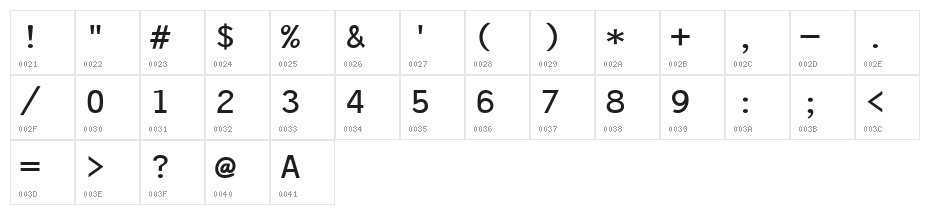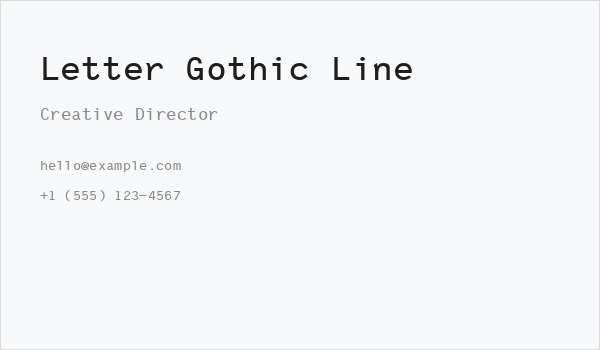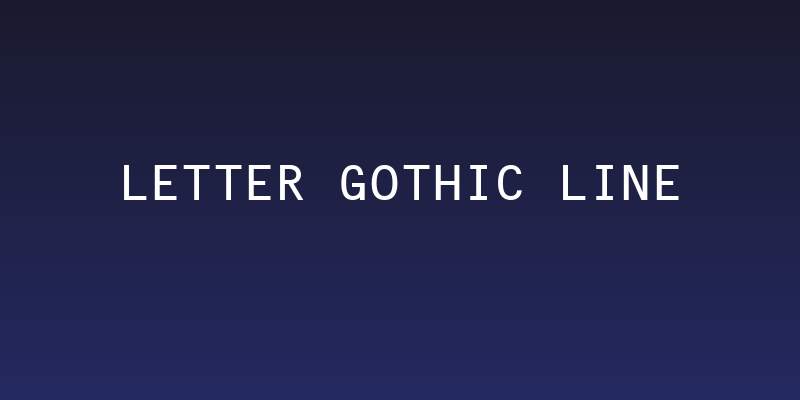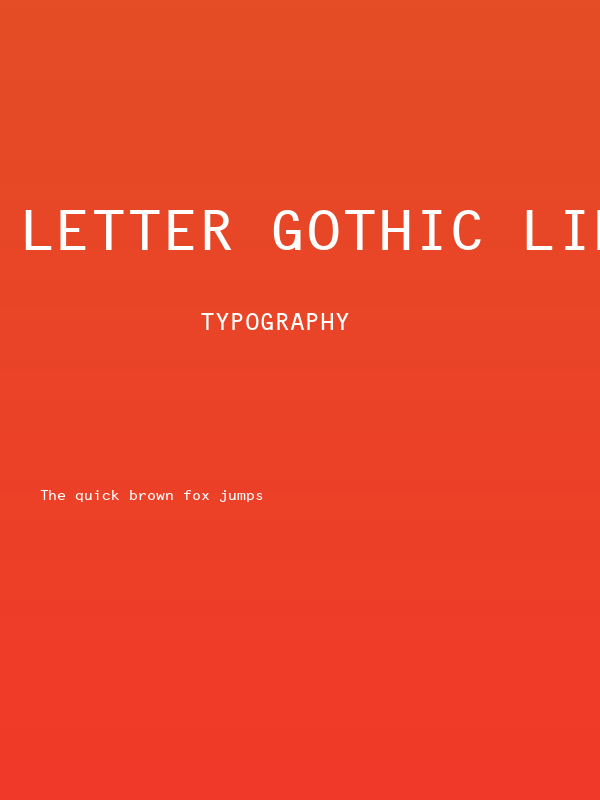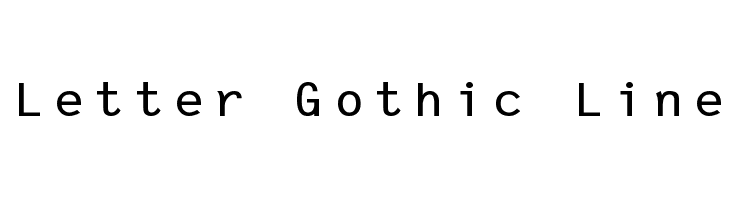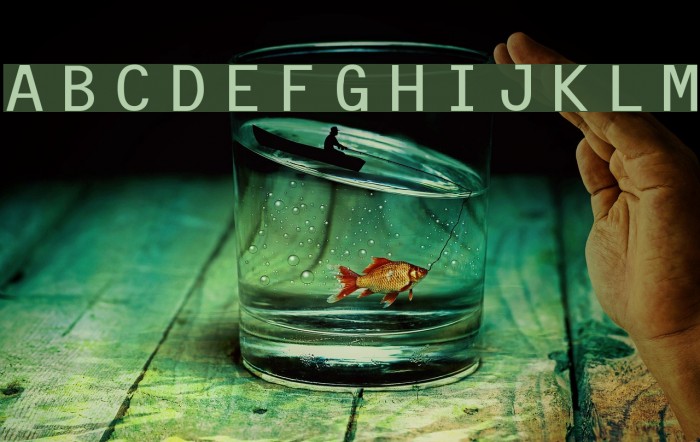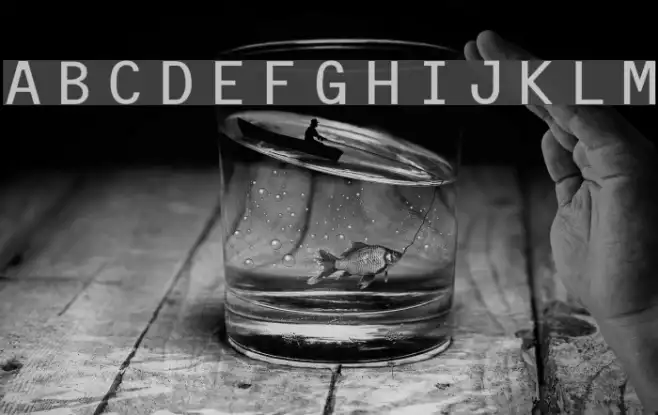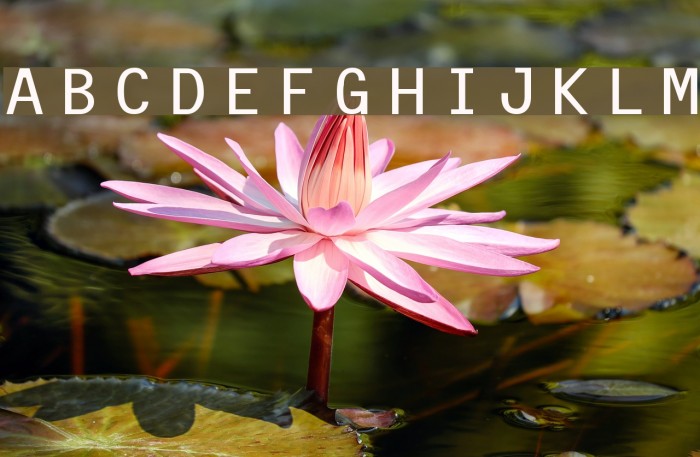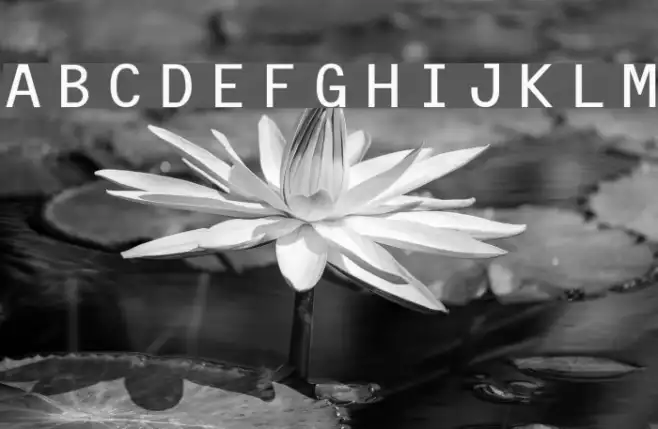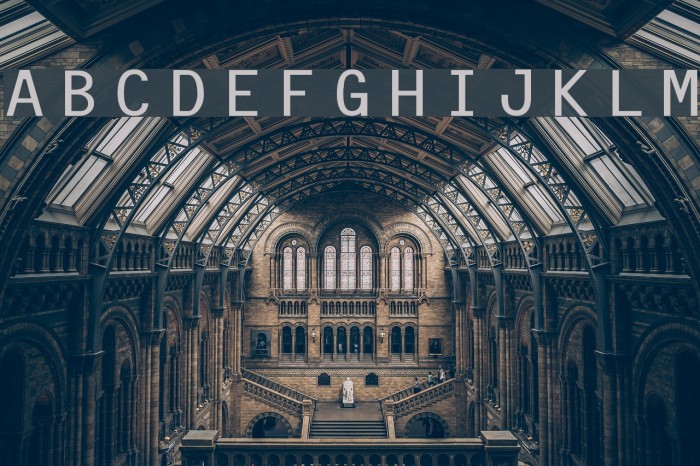
Letter Gothic Line Font
Letter Gothic Line Description
This font features a clean, monospaced design with a modern aesthetic. Each character is uniformly spaced, providing a balanced and organized appearance. The strokes are consistent in thickness, offering a low contrast that enhances readability. The geometric shapes and straight lines give it a technical and precise feel, making it ideal for coding, technical documents, or any context where clarity is paramount. The uppercase and lowercase letters maintain a uniform height, contributing to its orderly presentation. The numerals and special characters are designed with the same attention to detail, ensuring consistency across all elements.
| Use Case | Coding, Technical documents, Data tables |
| Proposed Projects | Ideal for coding, technical documents, data tables, and any project requiring clarity and precision. |